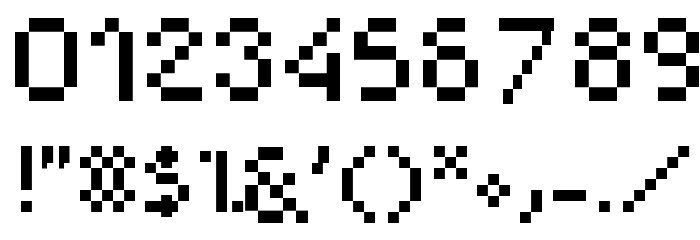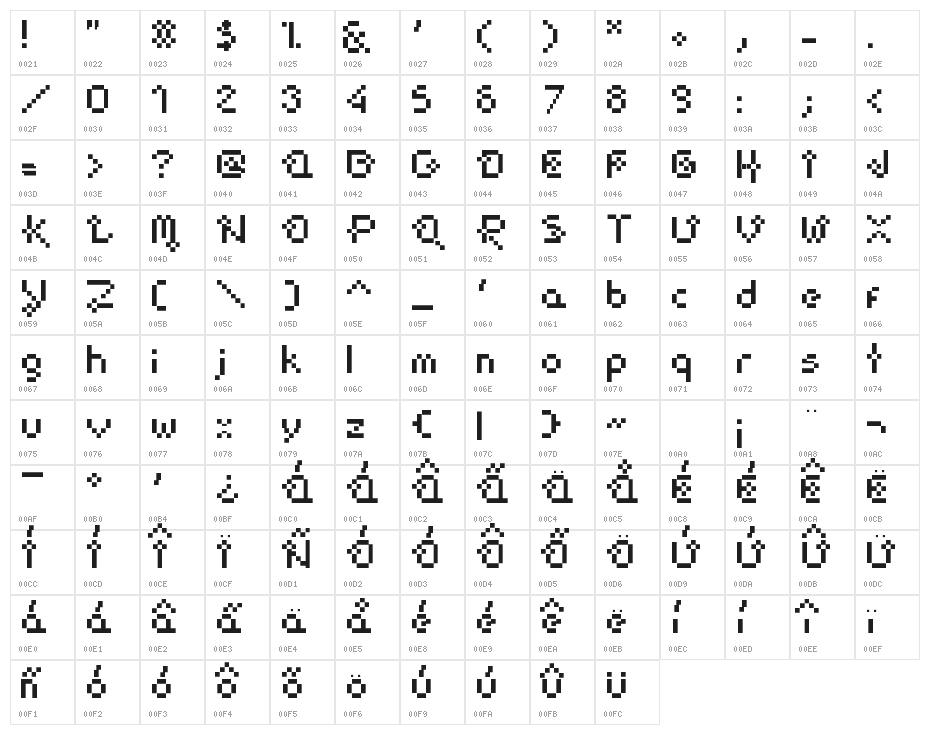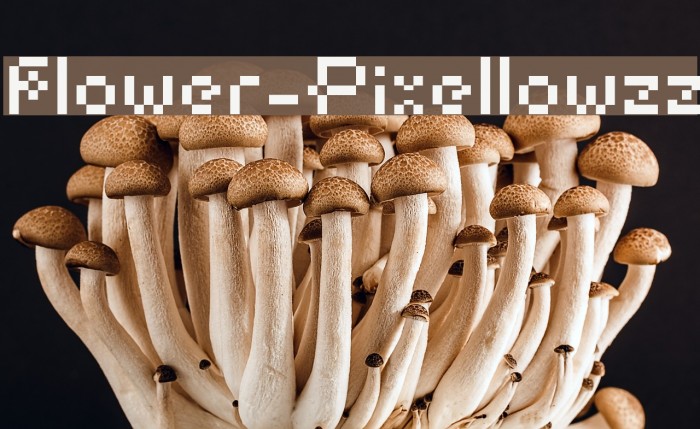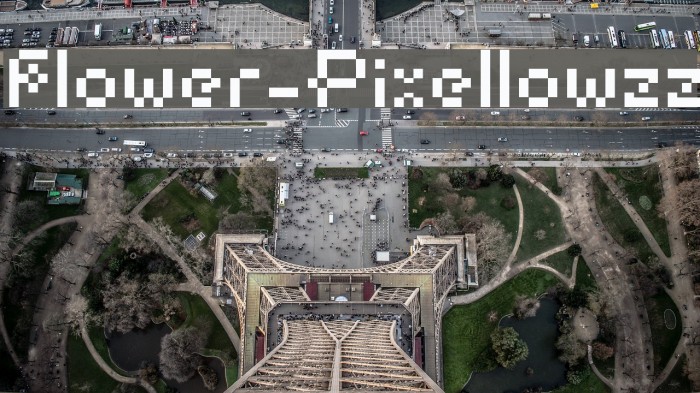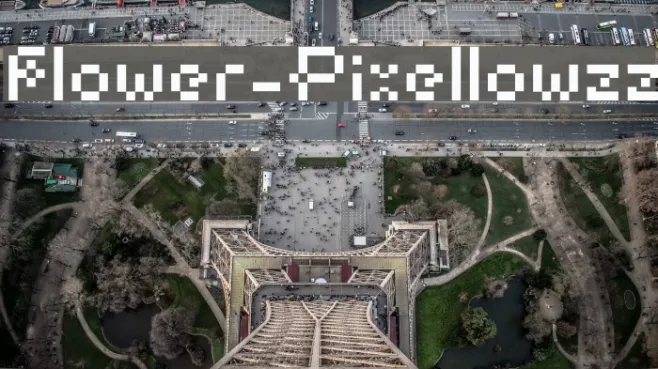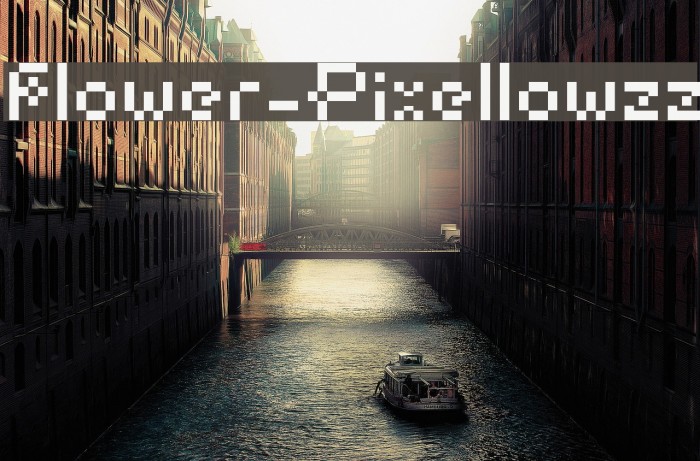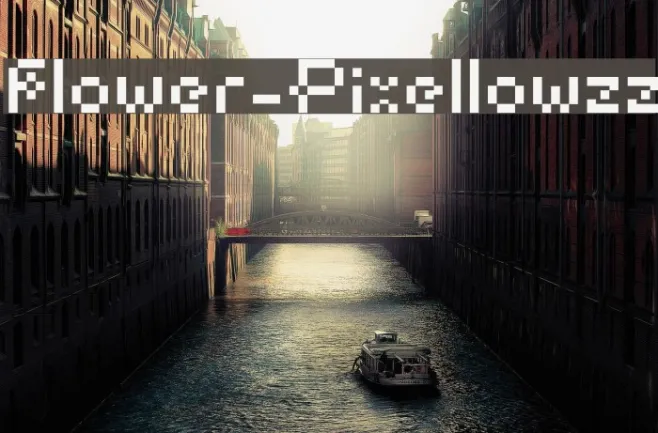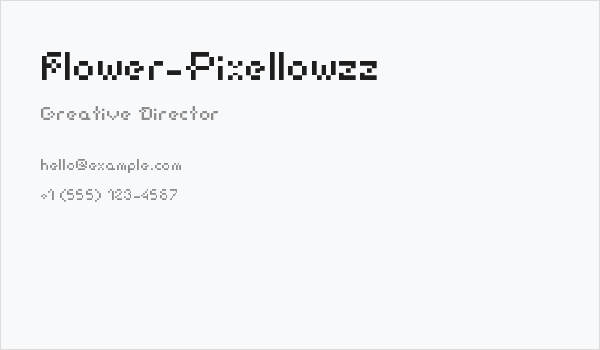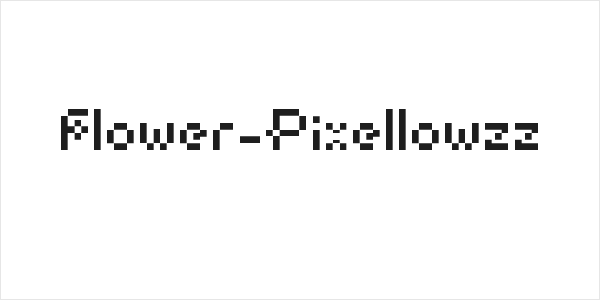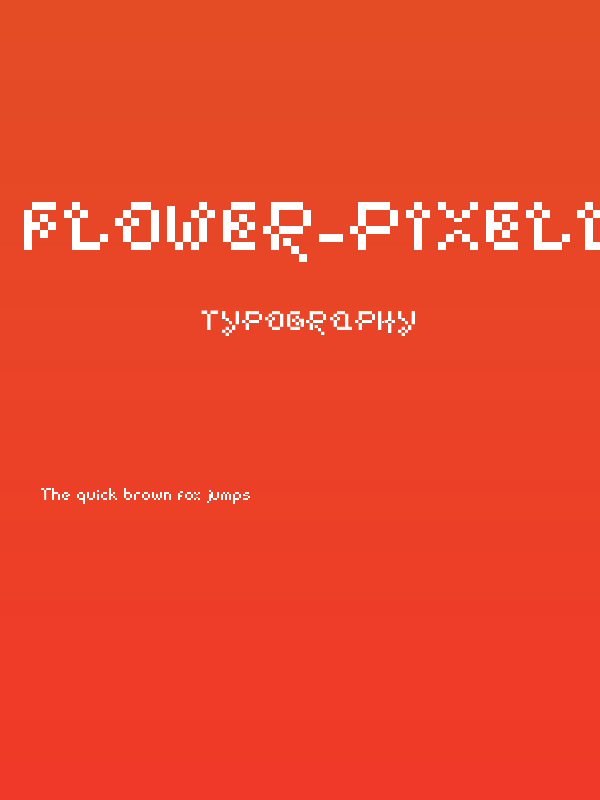
Flower-Pixellowzz Font
Flower-Pixellowzz Description
This font features a pixelated, blocky design reminiscent of early digital displays and retro video games. Each character is constructed with a grid-like pattern, giving it a distinctly digital and nostalgic feel. The uppercase and lowercase letters maintain a consistent height, contributing to a uniform appearance. The numerals and special characters follow the same pixelated style, ensuring cohesion across all elements. This font's simplicity and geometric structure make it highly legible, even at smaller sizes, while its unique style adds a playful and retro touch to any design.
| Use Case | Logos, Headlines, Digital Art |
| Proposed Projects | Ideal for retro-themed designs, video game graphics, digital art projects, and any creative work seeking a nostalgic or playful aesthetic. |